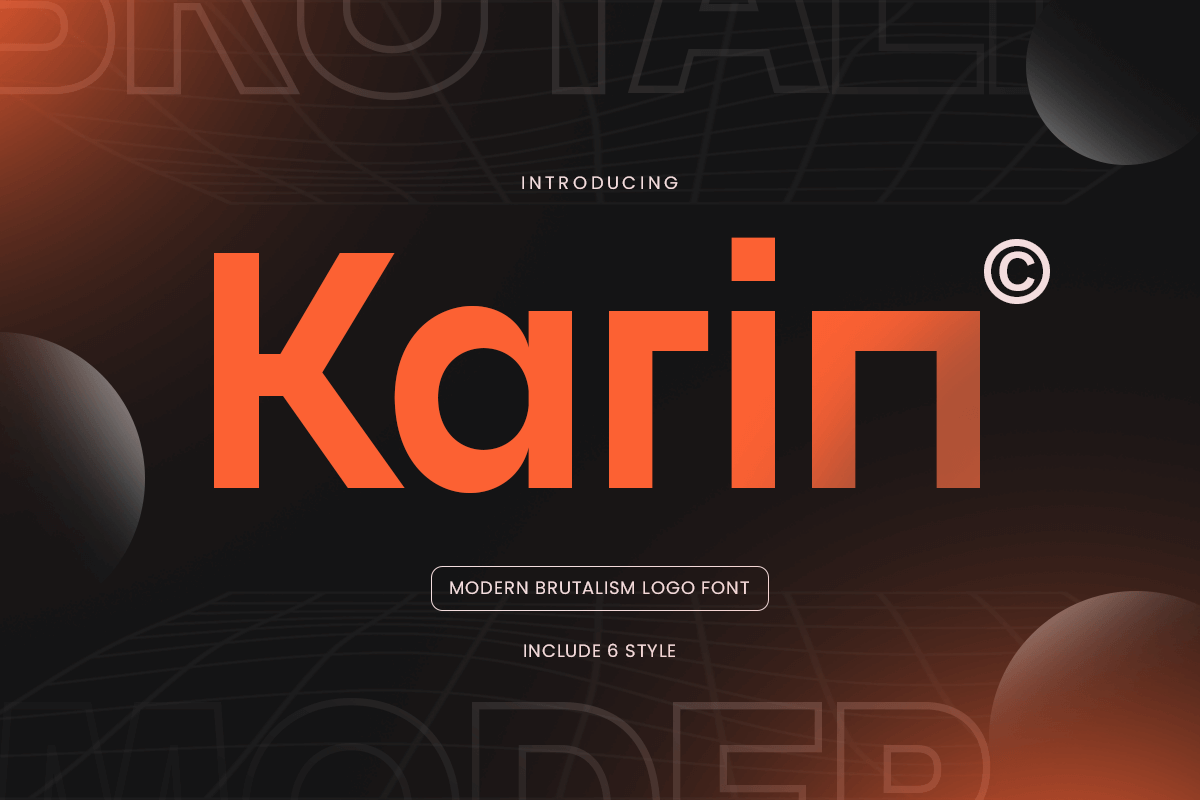
Karin
-Modern Brutalism Logo Font
Karin - Modern Brutalism Logo Font
Karin is a modern brutalism logo font crafted with sharp angles, bold structure, and minimalist energy. It’s made for creatives who want their branding to be loud, raw, and confidently different—perfect for logos, posters, fashion labels, and tech-forward visuals.
Each character is shaped to convey strength and personality, giving your designs a distinctive brutalist edge. Karin’s rigid yet stylish design helps your message stand out in today’s saturated visual world.
If you're aiming for bold aesthetics and unapologetic design, Karin is the font to leave an impression.
Karin – Modern Brutalism Logo Font Features
• Strong brutalist structure with modern forms
• Available with 6 different styles inside
• Ideal for logos, posters, editorial, and creative branding
Let your visuals speak loud and clear with Karin—where brutalism meets modern design.
Go bold, go brutal — with Karin. 🧱🖤